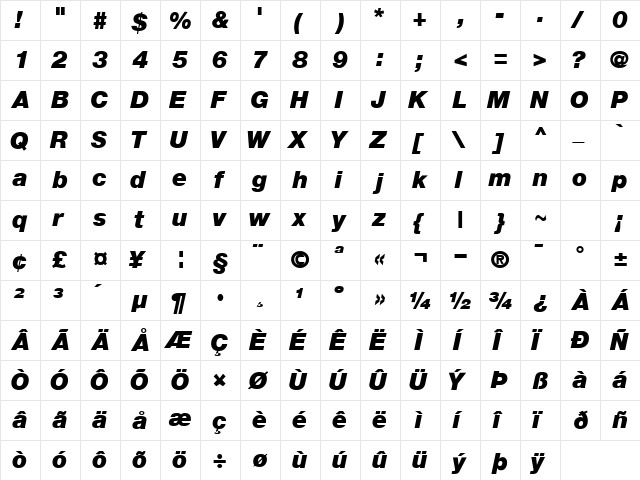
ContextRepriseBlackSSK Bold Italic
Design Context for ContextRepriseBlackSSK Typeface
ContextRepriseBlackSSK is a composed and adaptable typeface that performs quietly and consistently across a wide range of design contexts. Its italic angle brings a sense of urgency and motion to the letterforms. The heavy weight commands attention and anchors typographic hierarchies.
Pro Tip: Use ContextRepriseBlackSSK for emphasis, pull quotes, and subheadings where its slanted energy can add rhythm to the layout.